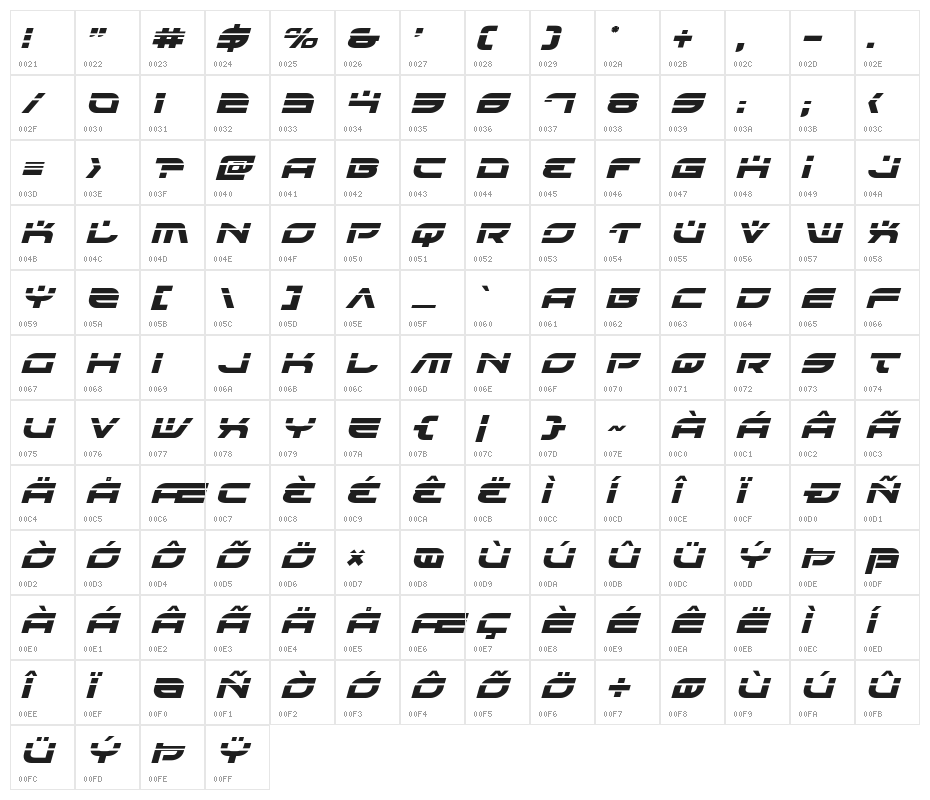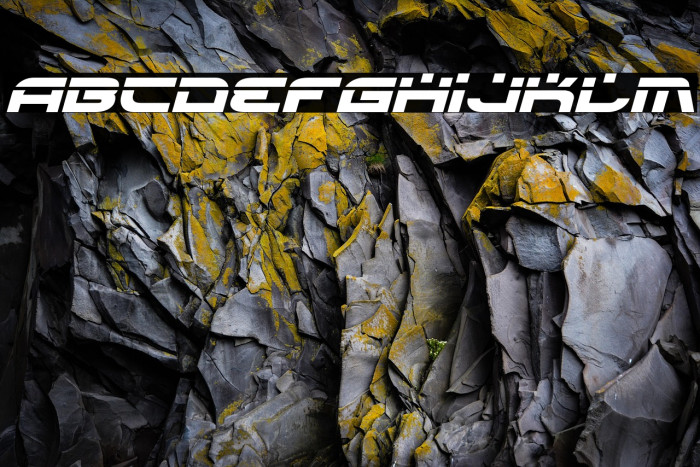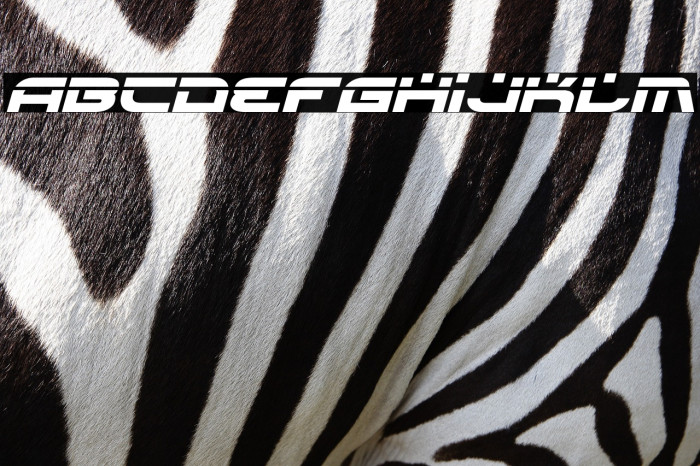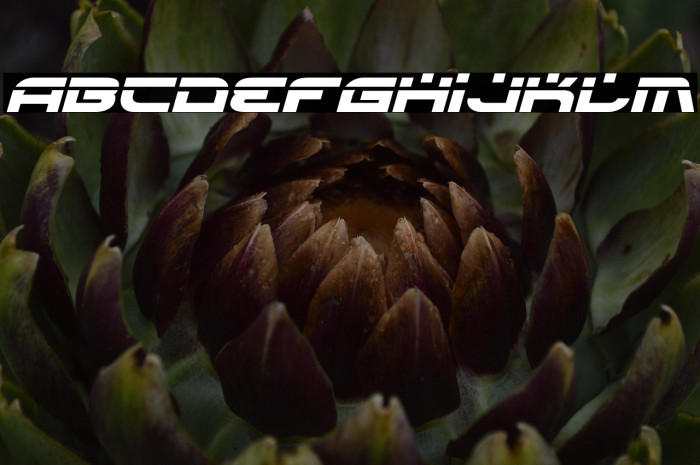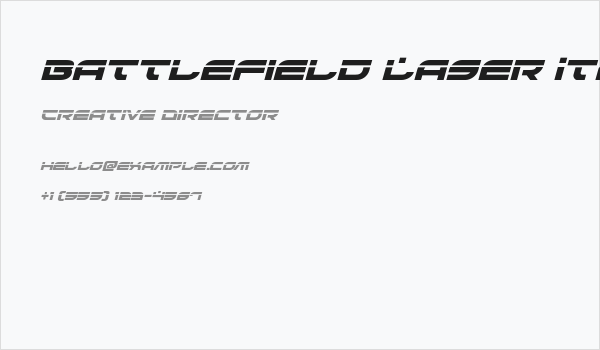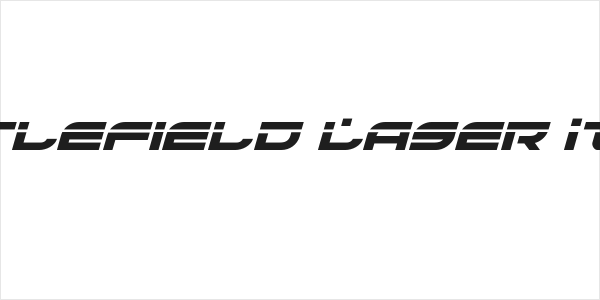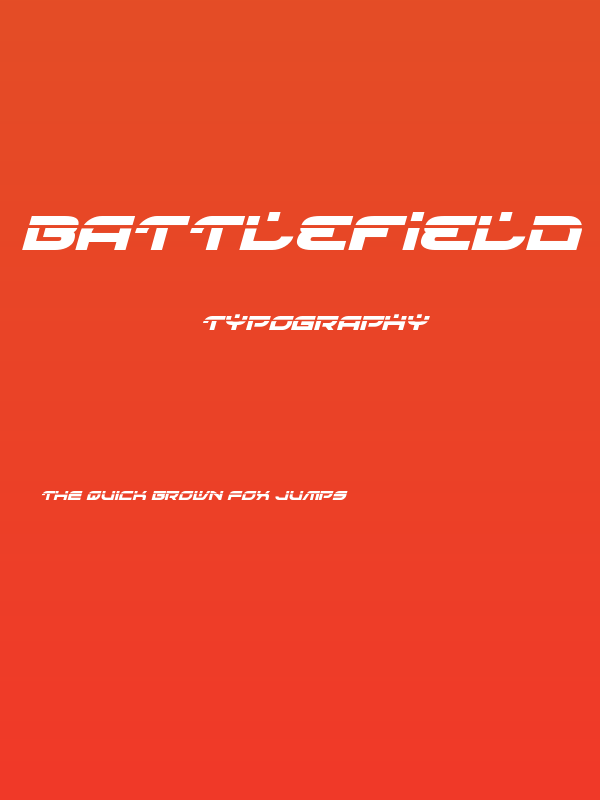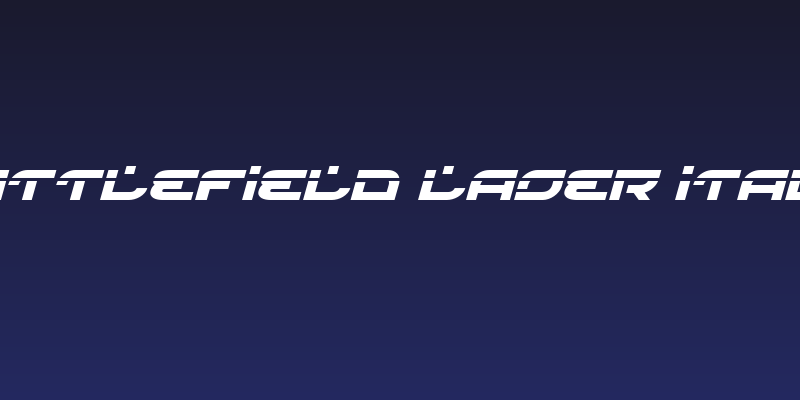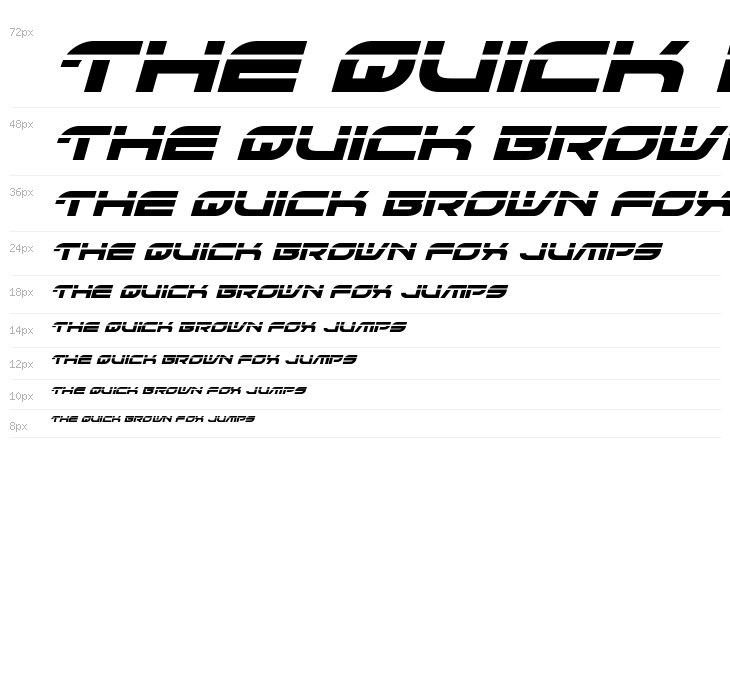
Battlefield Laser Italic Font
Battlefield Laser Italic Description
This font features a futuristic and angular design, characterized by its sharp edges and dynamic slant. The letters are bold and convey a sense of speed and modernity, making it ideal for projects that require a tech-savvy or cutting-edge appearance. The uppercase and lowercase letters maintain a consistent style, with each character exhibiting a unique geometric form. The numbers and special characters are designed to match the overall aesthetic, ensuring a cohesive look across all text elements. This font's distinct style makes it stand out, perfect for attention-grabbing headlines or branding that needs a modern twist.